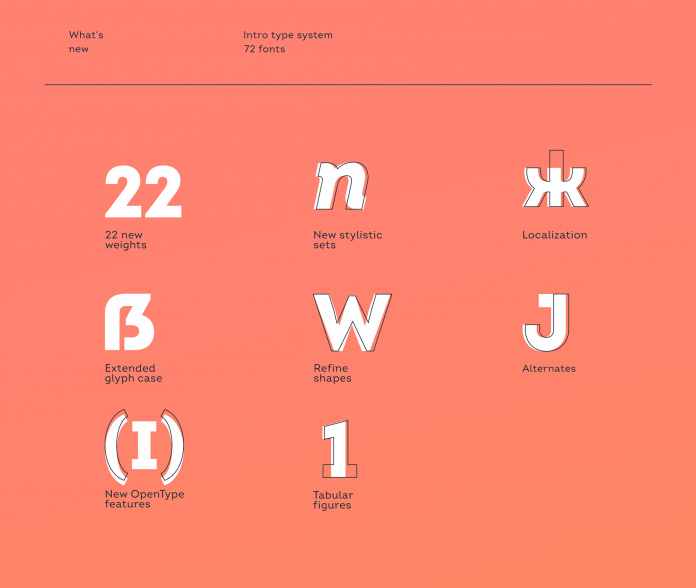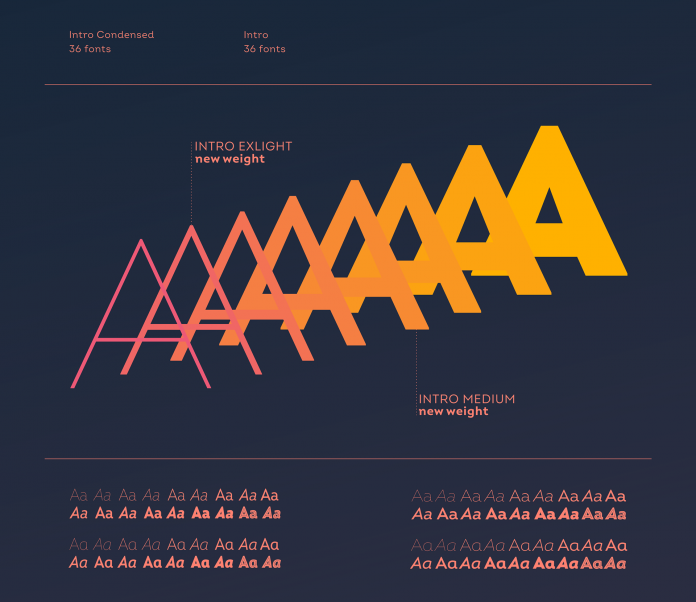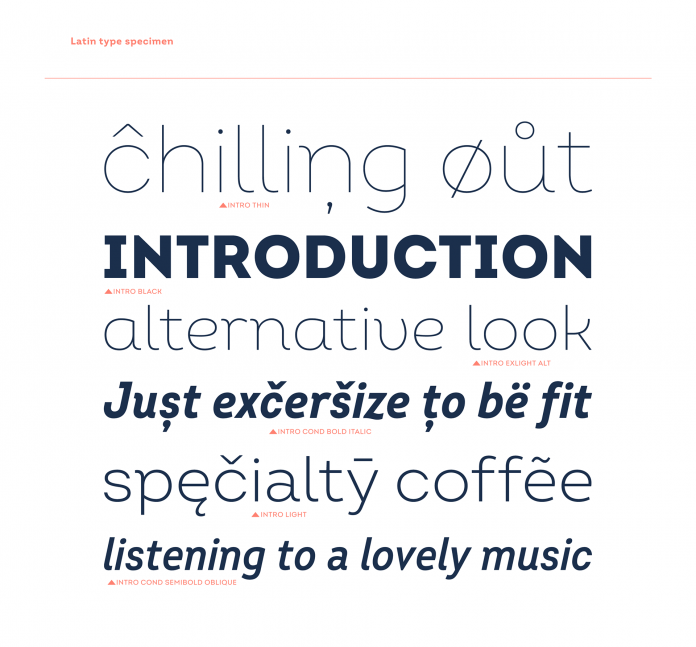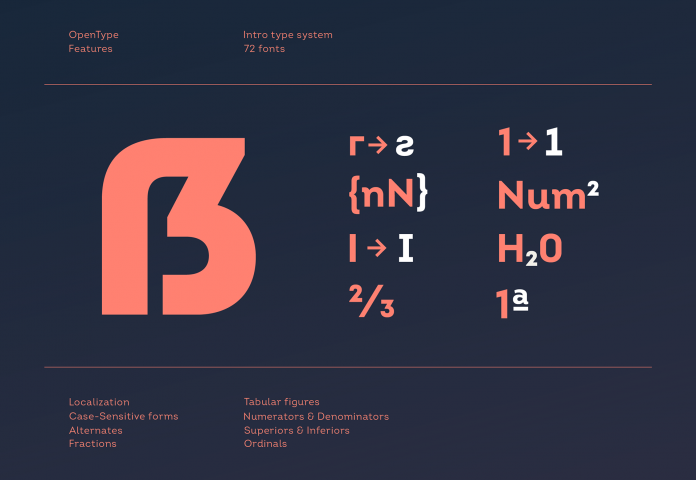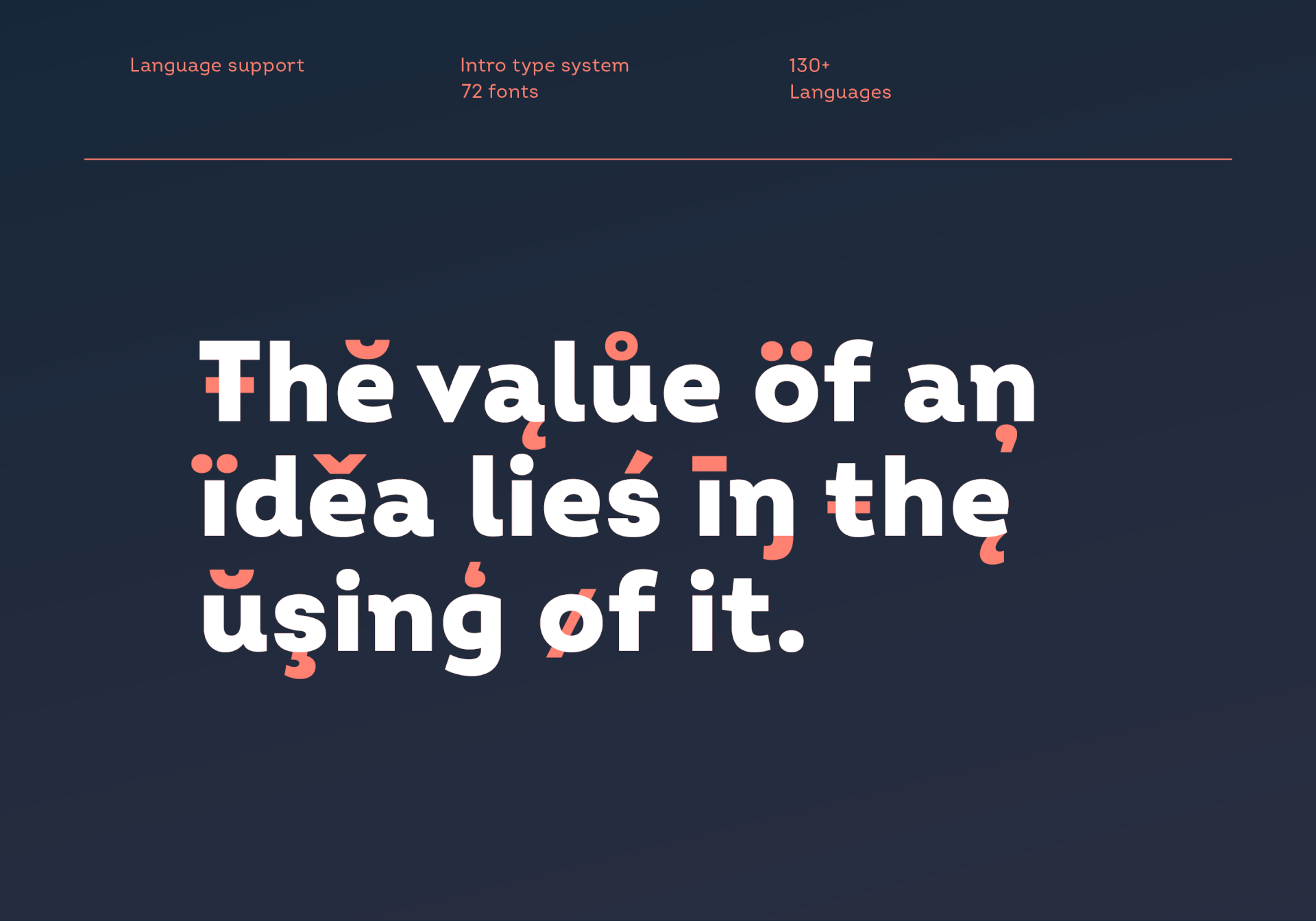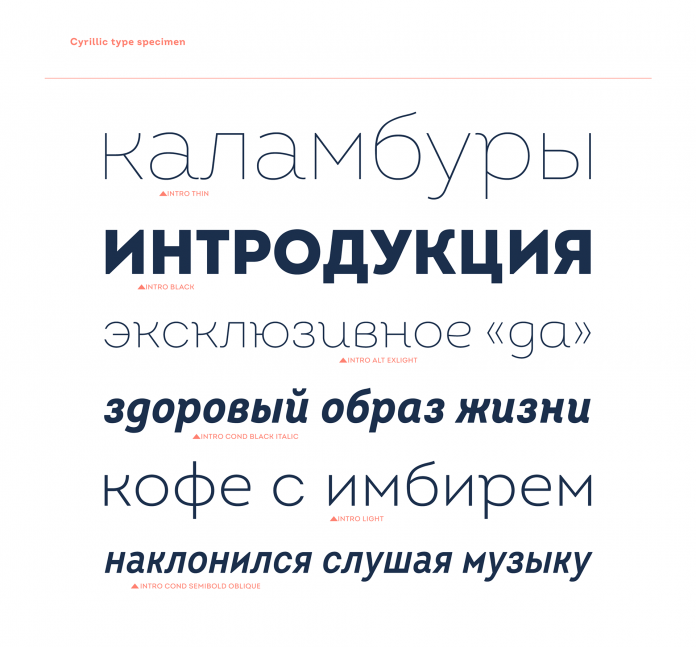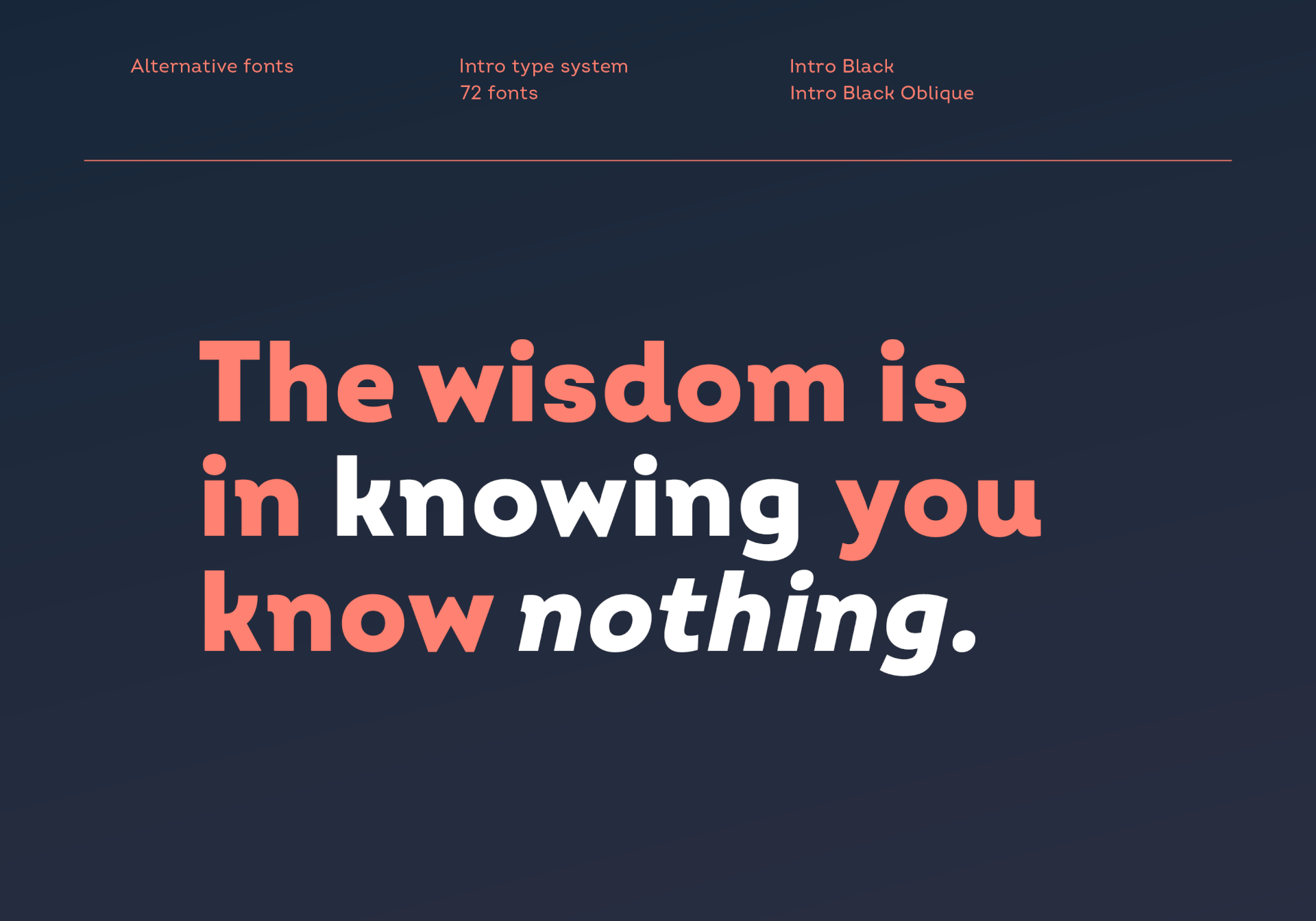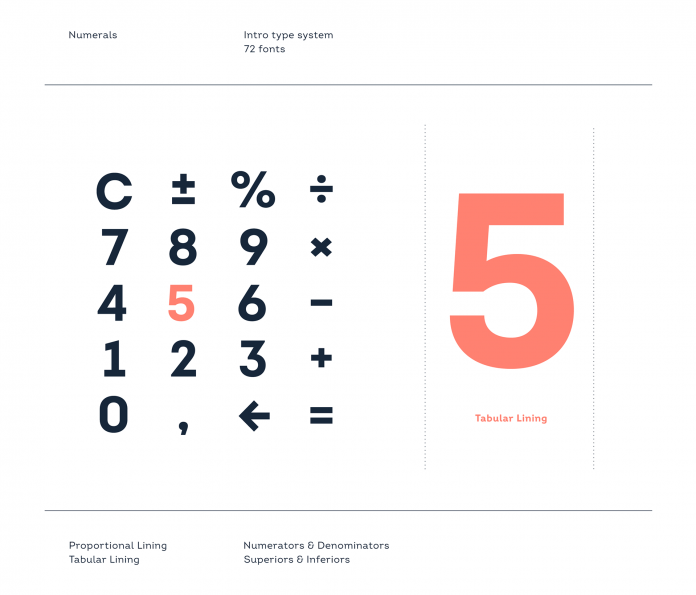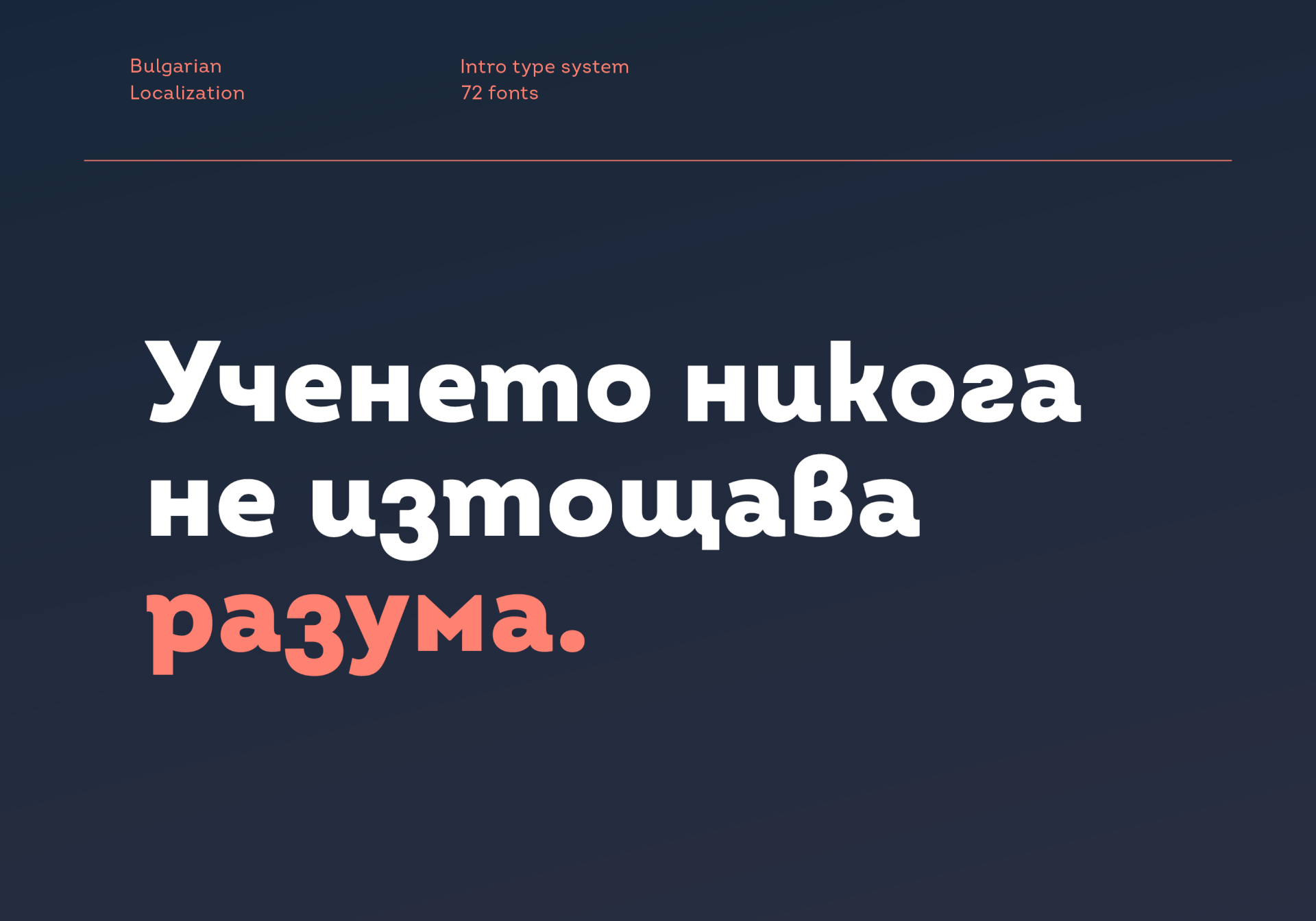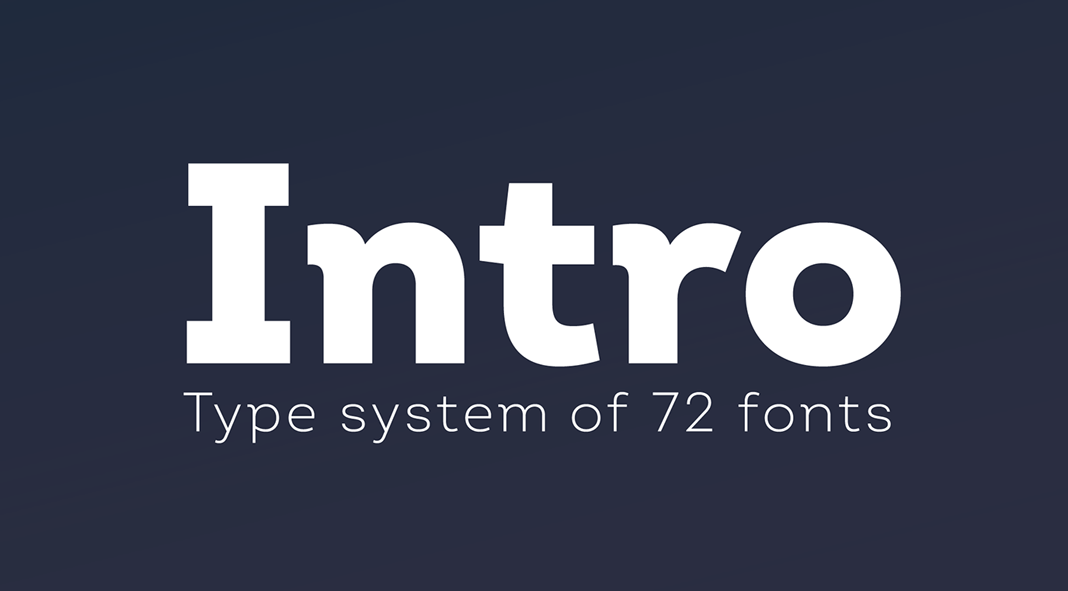
Discover the updated version of the popular Intro font family from type foundry Fontfabric.
In 2019, the friendly folks of type foundry Fontfabric rolled out a big update to the popular Intro font family. In addition to some essential upgrades to this classy typeface, they revised all weight distributions and added 2 new weights plus matching Italics to the family. Therefore, the family now includes 8 weights comprising a total of 72 fonts. All of the styles are also available as super-slender Condensed versions. But that’s not all—they included some carefully adjusted Oblique alternatives and added 3 inline styles to the family.
Here are some more details of newly added features. The glyph case has been expanded to cover extended support for Latin and Cyrillic letters with adequate language localization. In addition, all OpenType features have been revised to allow case-sensitive forms, contextual alternates as well as numerous stylistic alternates. The standard numerals also cover tabular figures, symbols, superiors and inferiors, numerators and denominators as well as fractions. To learn more, just click on one of the following links or have a look at the images below.